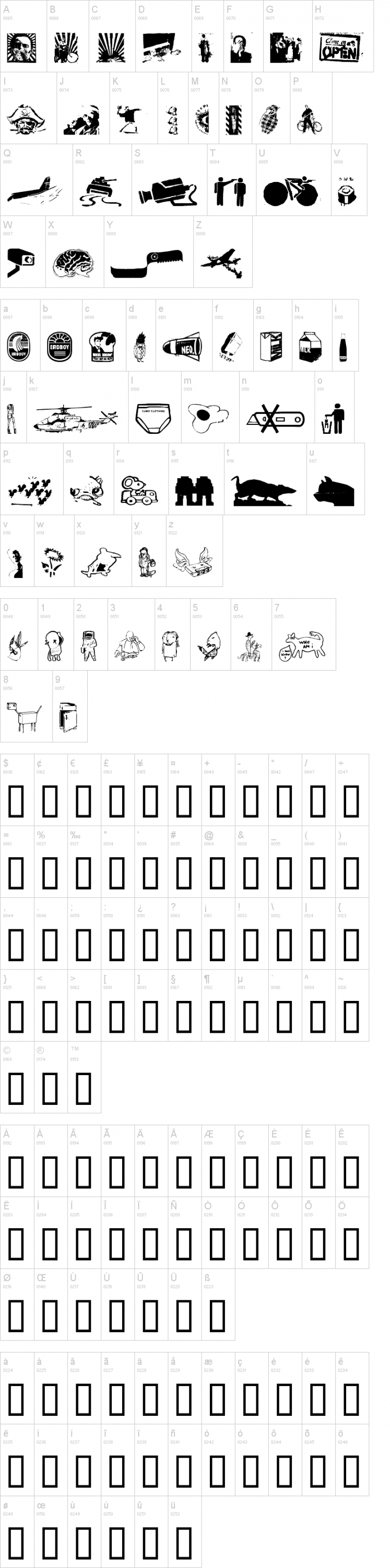
Шрифт PlakkenWalls
The images were taken from deconstructed posters, stickers and graffitis found in public places (original artwork by Badfame inc, Bild, CBS, Erdboy, Free, Freeze, Funk, itchicrew, Milk, Neo, Stirb, Sumo, Tasek and many others). Do not use this font for logotypes or trademarks.